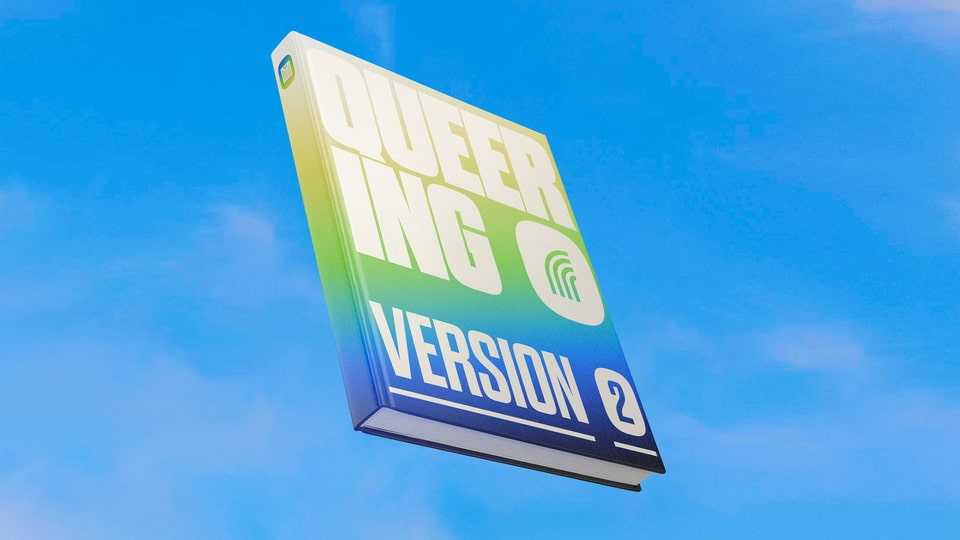
Download Queering font, a bold display typeface inspired by protest posters and queer publications updated for the modern age. The name Queering comes from the activity of ‘Queering a Space’ — transgressing what are seen as fixed categories — such as gender and sexuality
Designer: Adam Naccarato